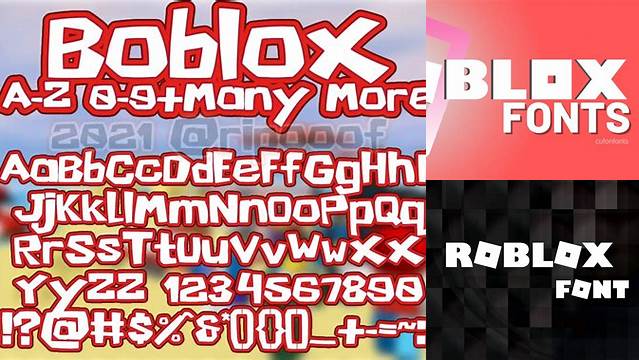
Font Roblox: Free Downloads & How To Add Custom Fonts
When we talk about font roblox free download, it's essential to understand the broader context of customization and user experience within the Roblox platform. Roblox, a global phenomenon, empowers millions to create, share, and explore immersive 3D experiences. A crucial element in crafting these engaging environments is the visual aesthetic, and fonts play a significant role in defining this aesthetic. Choosing the right font can significantly impact how players perceive your game, influencing everything from readability to the overall atmosphere. Whether it's a quirky, playful font for a children's game or a sleek, modern typeface for a futuristic world, the right font can elevate your creation and captivate your audience. Navigating the world of fonts and how they integrate with Roblox requires an understanding of the platform's capabilities, legal considerations, and best practices for implementation. So, let's dive in and explore the world of fonts in Roblox, ensuring you have the knowledge to enhance your game's visual appeal while staying within the platform's guidelines.
Understanding Fonts in Roblox
Okay, guys, so when you're diving into font roblox free download, you've gotta know how Roblox handles fonts. Unlike some other game development platforms, Roblox doesn't let you just upload any font file you find online directly. Instead, it provides a set of default fonts that you can use within your games. These fonts are pre-approved and optimized for the platform, ensuring they render correctly across different devices and don't cause any performance issues. The available fonts range from basic, readable options to more stylized choices, offering a decent variety for different game genres and aesthetics. You can access these fonts through the Roblox Studio, the platform's game development environment, and apply them to various UI elements, such as text labels, text boxes, and chat interfaces. Understanding this limitation is key because it means you can't just grab any font file and expect it to work seamlessly. However, there are workarounds and creative solutions that developers use to expand their font options, which we'll explore later in this article. For now, remember that Roblox's built-in fonts are your starting point, and mastering their usage is crucial for creating visually appealing and functional games. Moreover, Roblox also supports the use of image-based fonts, which opens up a whole new world of possibilities. By creating custom images for each character, you can effectively use any font you desire, although this method requires more effort and careful planning to ensure optimal performance and visual quality. This approach is particularly useful for unique or highly stylized fonts that are not available within the default Roblox font library.
Where to Find Free Fonts for Roblox
So, you're on the hunt for a font roblox free download? Alright, let's get this straight: Roblox itself doesn't let you directly upload just any font willy-nilly. But don't sweat it! There are still ways to get that perfect font vibe for your game. Since you can't upload font files directly, the trick is to use image-based fonts. This means you'll be creating images for each letter, number, and symbol you want to use. Now, where do you find these fonts to turn into images? Loads of places online offer free fonts! Sites like Google Fonts, Font Squirrel, and DaFont are goldmines. Just make sure you're grabbing fonts with licenses that allow commercial use, so you don't run into any legal trouble down the road. Once you've got your font, you'll need to convert each character into an image. You can use any image editing software like GIMP (which is free) or Photoshop. Export each character as a separate image file, preferably in a format like PNG with transparency to avoid any weird backgrounds. Then, in Roblox Studio, you'll use these images to create your custom text. It's a bit more work than just selecting a font from a dropdown, but it gives you total control over the look and feel of your game's text! Remember to optimize your images to keep your game running smoothly. Smaller file sizes are your friend! This approach lets you sidestep the limitations of Roblox's built-in fonts and really make your game stand out.
Step-by-Step Guide: Implementing Custom Fonts in Roblox
Alright, buckle up, because we're diving into how to actually use that font roblox free download you've found. Implementing custom fonts in Roblox involves a bit of a workaround since, as we've established, you can't directly upload font files. Instead, we'll be using image-based fonts. Here's a step-by-step guide to get you through it:
By following these steps, you can effectively implement custom fonts in your Roblox games, even though Roblox doesn't directly support font file uploads. This method gives you complete control over the visual appearance of your text, allowing you to create a unique and engaging user experience.
Best Practices for Using Fonts in Roblox
So, you've figured out the whole font roblox free download thing, but hold up! Let's talk best practices, because just slapping any old font into your game isn't gonna cut it. First off, think about readability. A super fancy, swirly font might look cool, but if players can't easily read it, what's the point? Make sure your font is clear and easy to understand, especially for important text like instructions or dialogue. Consider the context of your game. A futuristic sci-fi game probably shouldn't use a whimsical, hand-drawn font. Match the font to the overall theme and style of your game to create a cohesive look and feel. Test your font on different devices. What looks great on your computer might be illegible on a phone or tablet. Make sure your font scales well and remains readable across different screen sizes and resolutions. Optimize your font for performance. Image-based fonts can impact performance if they're not optimized properly. Use small image sizes, and avoid using too many different fonts in your game. Use color and contrast wisely. Make sure your text stands out against the background by using appropriate colors and contrast. White text on a light background is a no-no! Be consistent with your font choices. Stick to a limited number of fonts throughout your game to maintain a consistent visual style. Using too many different fonts can make your game look cluttered and unprofessional. By following these best practices, you can ensure that your fonts enhance your game's user experience and contribute to its overall success.
Okay, let's be real. Working with font roblox free download and implementing them in Roblox isn't always smooth sailing. You might run into some snags, but don't worry, we've got you covered. One common issue is blurry or pixelated text. This usually happens when your font images are too small or not properly scaled. Make sure your images are high enough resolution to look crisp and clear, especially on larger screens. Another issue is performance problems. Using too many image-based fonts can slow down your game, especially on lower-end devices. Try to optimize your images by reducing their file size and using them sparingly. If your text isn't displaying correctly, double-check your code for errors. Make sure you're correctly mapping each character to its corresponding image asset ID in your font module. Also, ensure that your ImageLabels are properly positioned and sized. Sometimes, changes you make in Roblox Studio might not appear immediately in your game. Try restarting Roblox Studio or your game to see if that fixes the issue. If you're still having trouble, consult the Roblox developer documentation or ask for help on the Roblox developer forums. There's a huge community of developers who are always willing to lend a hand. And remember, debugging is a normal part of game development. Don't get discouraged if you run into problems. Just keep experimenting and troubleshooting until you get it right!
So, there you have it, your comprehensive guide to font roblox free download and implementation! While Roblox doesn't allow direct font file uploads, using image-based fonts opens up a world of possibilities for customizing your game's visual style. Remember to choose fonts that are readable, contextually appropriate, and optimized for performance. Follow our step-by-step guide to implement custom fonts in your game, and don't forget to troubleshoot any issues that may arise. By mastering the art of font customization, you can create a unique and engaging user experience that will captivate your players and set your game apart from the crowd. Now go forth and create some visually stunning games!